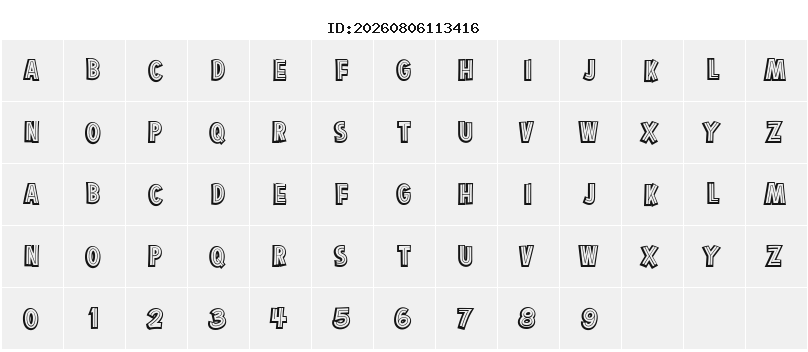
Orange Whip Preview
• Font Name: Orange Whip
• Full Font Name: Orange Whip
About Orange Whip.ttf
Orange Whip.ttf is a modern, elegant sans-serif font designed for ultimate readability and visual harmony. Perfect for branding, headlines, web design, and print materials.